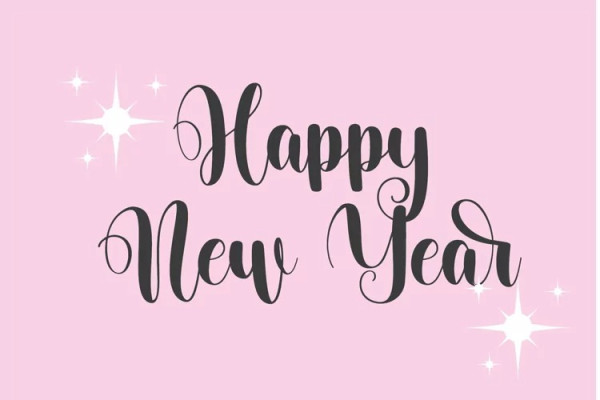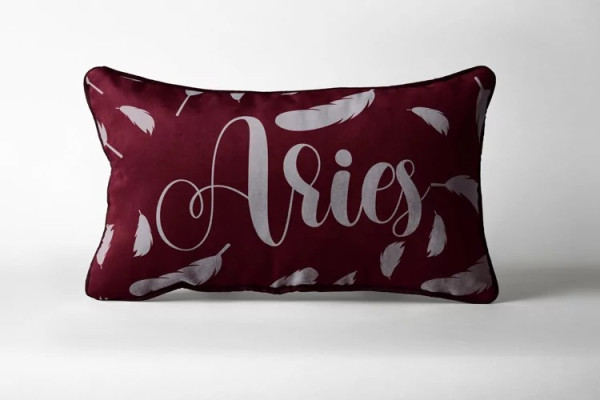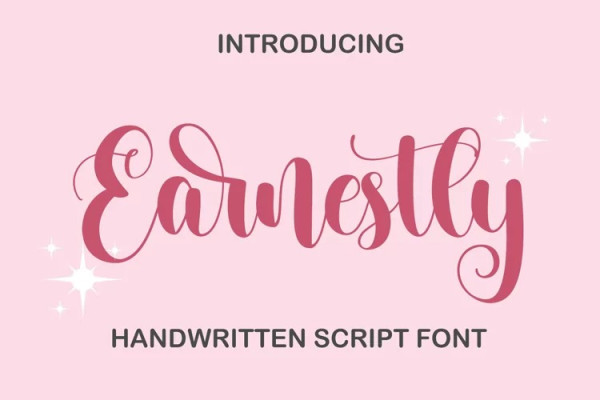
Earnestly Font
Earnestly Font is a lovely and timeless handwritten font. It is the best choice for creating eye catching logos, branding and quotes. Every letter has a unique and beautiful touch, which will make your design come alive!